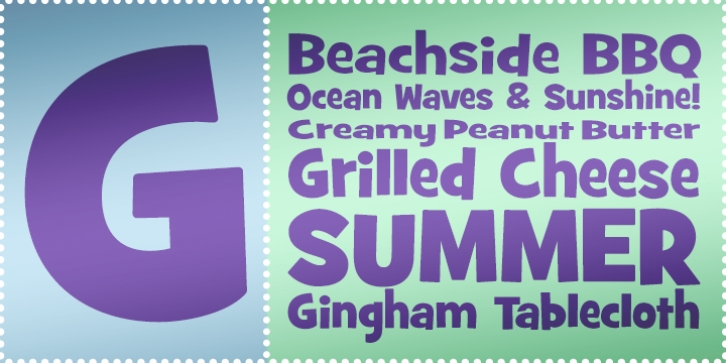
Grilled Cheese BTN was designed by Stuart Sandler and published by Breaking the Norm. Grilled Cheese BTN contains 9 styles and family package options.
Grilled Cheese was cooked up to be one of the most versatile display typefaces ever created.
It makes a bold statement with its strong, easy-to-read look and keeps a playful personality.
· Grilled Cheese BTN
· Grilled Cheese BTN Toasted
· Grilled Cheese BTN Outline
· Grilled Cheese BTN Cond
· Grilled Cheese BTN Cond Bold
· Grilled Cheese BTN Wide
· Grilled Cheese BTN Wide Bold
· Grilled Cheese BTN Wide Black
· Grilled Cheese BTN Outline Wide